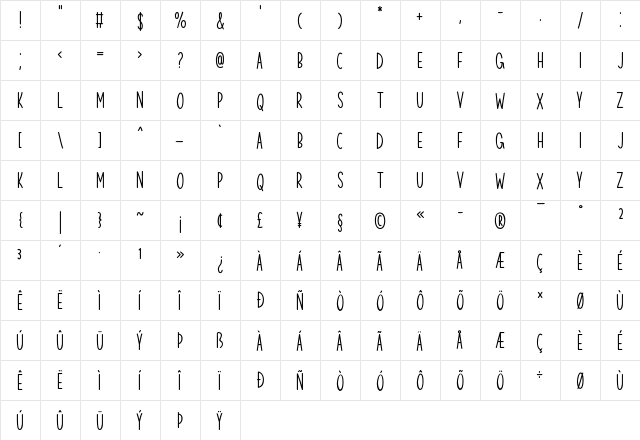
Christmas Respite Regular
Design Context for Christmas Respite Typeface
Christmas Respite offers clean, dependable letterforms without strong stylistic allegiance, making it a practical choice for designers who need flexibility.